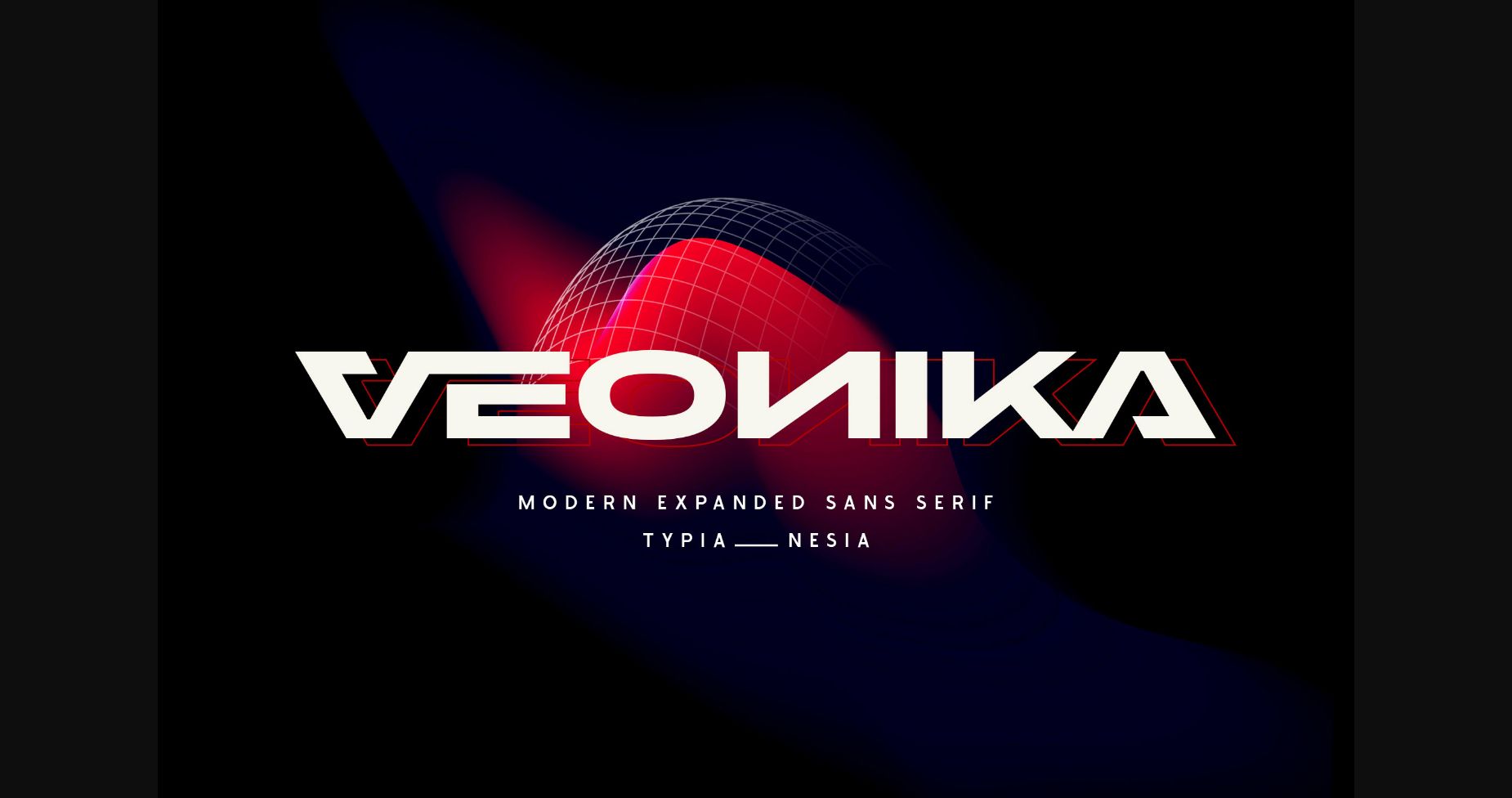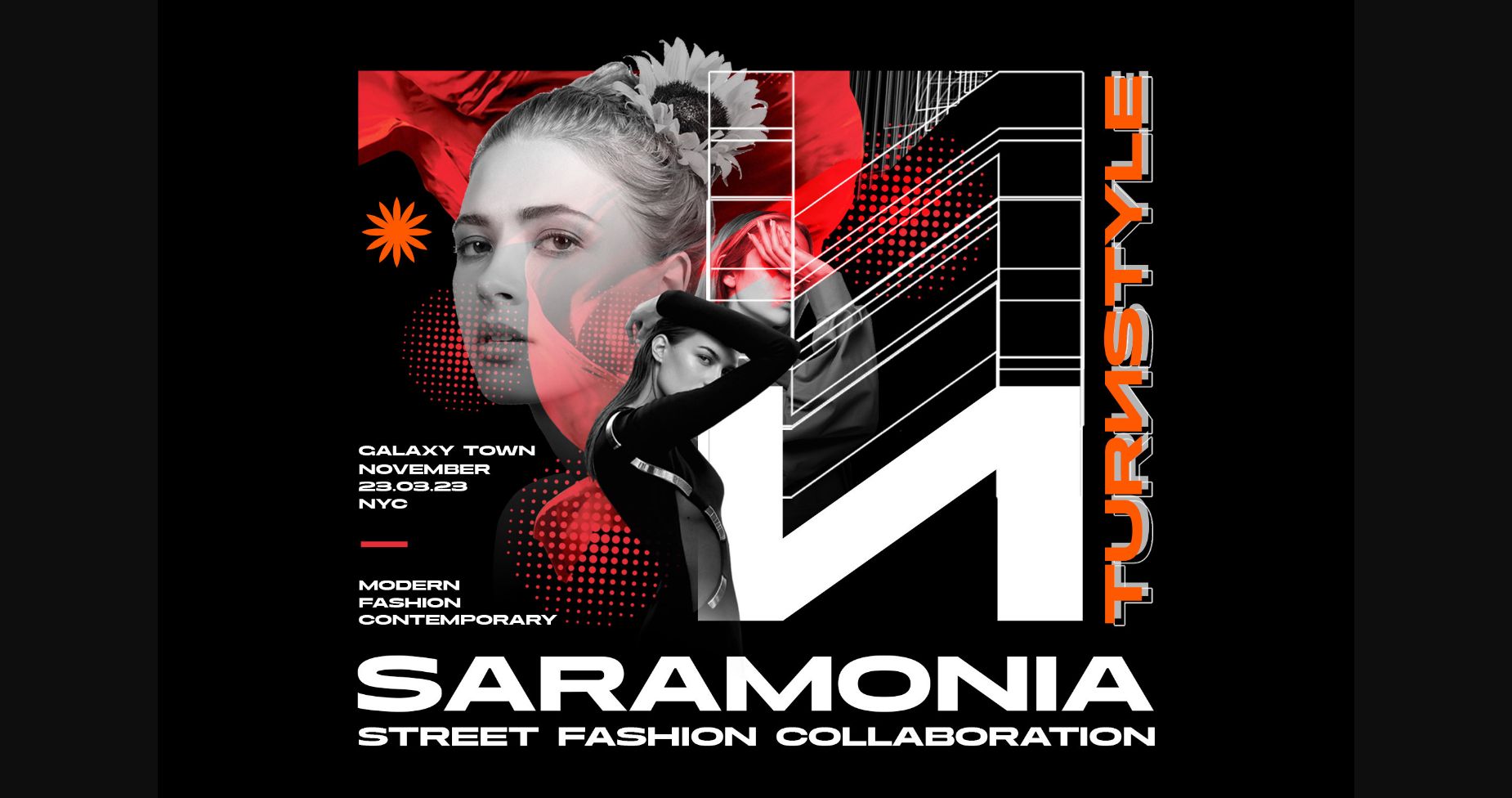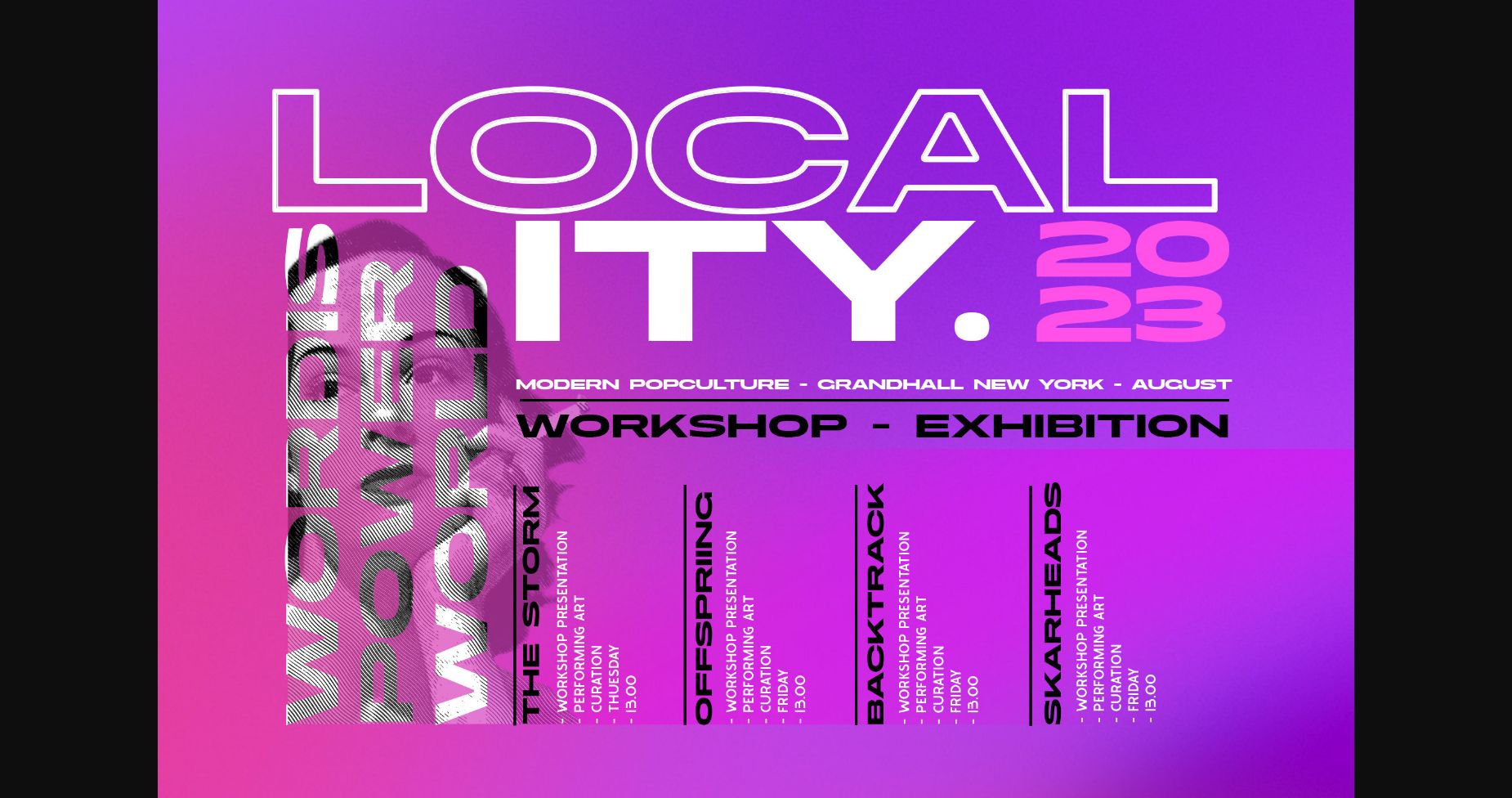
About Veonika Font
Veonika is a stylish and modern expanded sans-serif typeface that features unique ligatures and alternate characters. With its bold and sophisticated appearance, Veonika Font is ideal for creating eye-catching headlines and graphic designs. This typeface is suitable for various design projects such as branding, packaging, advertising, and more.